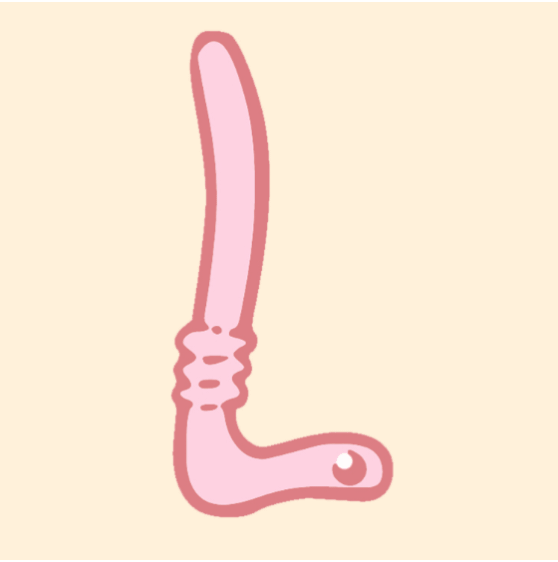
Wiggly Worms Font Design
Little Worms font. Inspired by the crazy amount of worms we have in the garden at the moment. Expect a ladybird one soon, maybe, as they seem to be at record amounts already too!! You can find the OTF TTF Versions here https://fontbundles.net/squeebcreative/6669740-little-worms-font-hand-drawn-comic-wiggly-letterin?ref=ME11Bm https://www.creativefabrica.com/product/little-worms/ref/940640/?sharedfrom=pdp https://www.teacherspayteachers.com/Product/Little-Worms-Font-Hand-Drawn-Comic-Snakes-Wiggly-Lettering-ABC-OTF-Type-15831590 And you can find the EPS, JPG, PNG, SVG and…
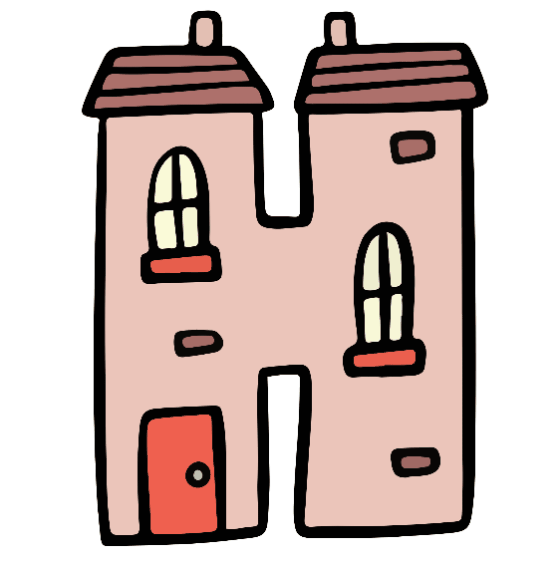
Happy House is a Home Cartoon Font Lettering
A new happy houses font design! Each letter has little windows and doors. I came up with the idea when I was having a cheeky pint down the pub… Brain lubricant. Available in all formats, check out the links below, and let me know what you use the font for. I love seeing everyone’s creativity!…
Cute Floral Springtime Font Time!
Spring is starting to spring! Just noticed some daffodil shoots coming up. Hooray! This new font gives a cute feeling to the season. Available in all the formats you’ll need! Below are links to the OTF TTF files, and the PNG, ETF, SVG JPG files! I hope you enjoy them, as they were so much…
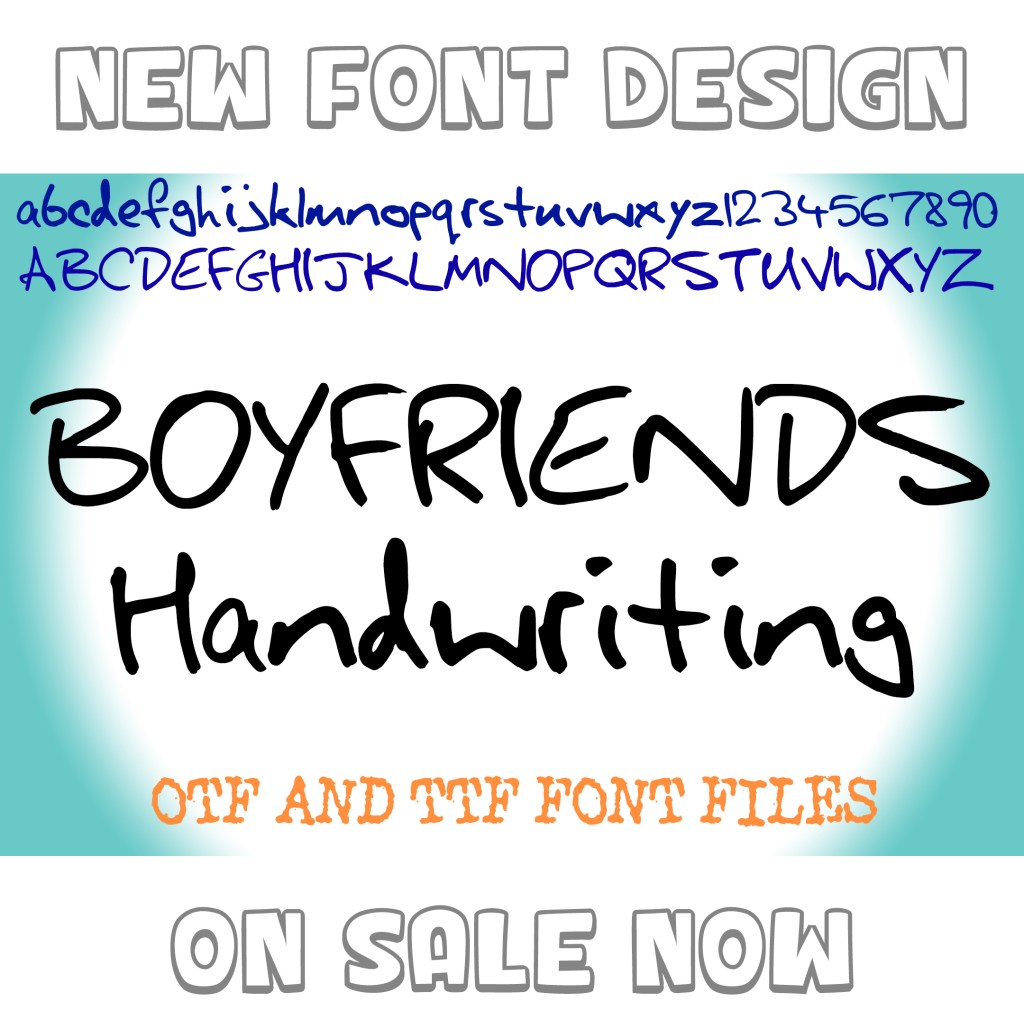
Boyfriends Handwriting. New Font Design
Now I can forge official documents! Only joking. My other half writes his letters upwards, which I always find fascinating. So fascinating he now has his own OTF font to use on Word. I may have turned his O round a bit, that was way too odd. This font, and over 300 other lettering styles…
Floral and Valentines Love Fonts for Spring
I’ve been working hard with my Christmas jumper on creating some floral and valentines fonts for the spring! As designers we need to keep on top of the trends, and I do love a floral doodle! These unique font designs, and over 300 more, are available to download at Creative Fabrica, Etsy, Teachers Pay Teachers…
Smashed Glass Graffiti Font – New Bold Typeface for Designers
If you are searching for a bold and edgy font that stands out, the Smashed Glass Graffiti Font is the perfect choice. This unique typeface is designed with a shattered glass effect, making it ideal for projects that demand a strong, urban, and rebellious style. The Smashed Glass Graffiti Font is a brand-new font design…
Introducing Bouncy Cartoon Doodle Font: A Playful Typeface for Fun Designs
I’m so excited to share my newest creation with you – the Bouncy Cartoon Doodle Font! This is a hand-drawn, playful display font designed to bring energy, colour, and personality to your projects. If you’ve been searching for a fun doodle font or a cartoon-style typeface, this one’s for you. I’ve always loved doodles, squiggles,…
Introducing Chunky Funky: My New Bold, Playful Font Design
How-dee partners! I’m so excited to finally share something I’ve been working on behind the scenes – my brand-new font design: Chunky Funky! If you know me, you know I’m obsessed with playful typography and bold, eye-catching designs. I wanted to create a typeface that feels fun, chunky, and full of personality – something that…
Introducing Frayed Threadbare Fabric – A New Textured Display Font for Designers
If you’re looking for a unique font that combines bold lettering with a handcrafted, fabric-inspired texture, our new font design “Frayed Threadbare Fabric” is now available. This distressed, woven-style display font is perfect for designers who want to add a raw, organic, and eye-catching look to their projects. Unlike clean and minimal typefaces, Frayed Threadbare…
New Typography Font Designs! Rough Punk Pen Markers
Hi All! I have a a few more new hand drawn handwriting font designs available, I think they feel a bit DIY punky, and being a bit of a punk myself it’s not surprising my handwriting kind of looks like this! The Rough Marker Handwritten and Rough thin Marker Handwritten Fonts are a bold, sketch-style…
Going Bananas! New Custom Font Fun
Go bananas with your designs! Introducing Banana Font – a playful, fruity typeface perfect for posters, kids’ projects, branding, and anything that needs a pop of fun! Available in EPS, SVG, PNG, and JPG formats.Grab it now and make your words a-peeling! Available to download at Creative Fabrica, Etsy, Teachers Pay Teachers and Design Bundles.…
Yee-hah! Cowboy Wild West Lettering Font Design Collections!
Yee-haw! Why howdy there, strangers! Check out this fine collection of Wild West Cowboy style fonts! Perfect for wanted posters and themed party invites. Or maybe a Western banner! These unique font designs, and over 100 more, are available to download at Creative Fabrica, Etsy, Teachers Pay Teachers and Design Bundles. Links are on my…
Hello Banana! New Font Design!
Gimme some bananas, create a funny font! They always look so smiley, those little yellow tasty friends (ok, full disclosure, I only really like bananas in a milkshake.) This unique font design and over 100 more are available to download at Creative Fabrica, Etsy, Teachers Pay Teachers and Design Bundles. Links are on my profile.…
Cartoon Germ Slime Font Alphabet Lettering Collection
Hello all! I’ve been back on designing fun cartoon alphabets again. This time I went for the slime. Everyone loves slime, I’m sure of it. How can you not make a children’s design without the slime! This collection is available at Design Bundles https://designbundles.net/squeebcreative/3189554-germ-slime-font-alphabet-cartoon-snot-lettering-gr?ref=ME11Bm and Creative Fabrica now! https://www.creativefabrica.com/product/germ-slime-font-alphabet-cartoon-snot/ref/940640/